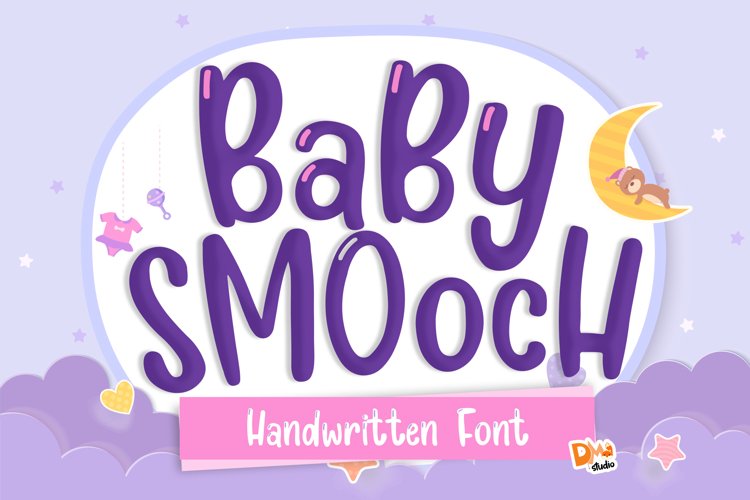
Baby Smooch Handwritten Display Font
Baby Smooch is a smooth, curvy and warm crafty handwritten font.
Baby Smooch great for any purpose, lovable and try different styles to have another uniqueness.
Comes in two styles, regular and highlight line version.
- Two styles ( Regular and highlight line )
- Numbers
- Symbols